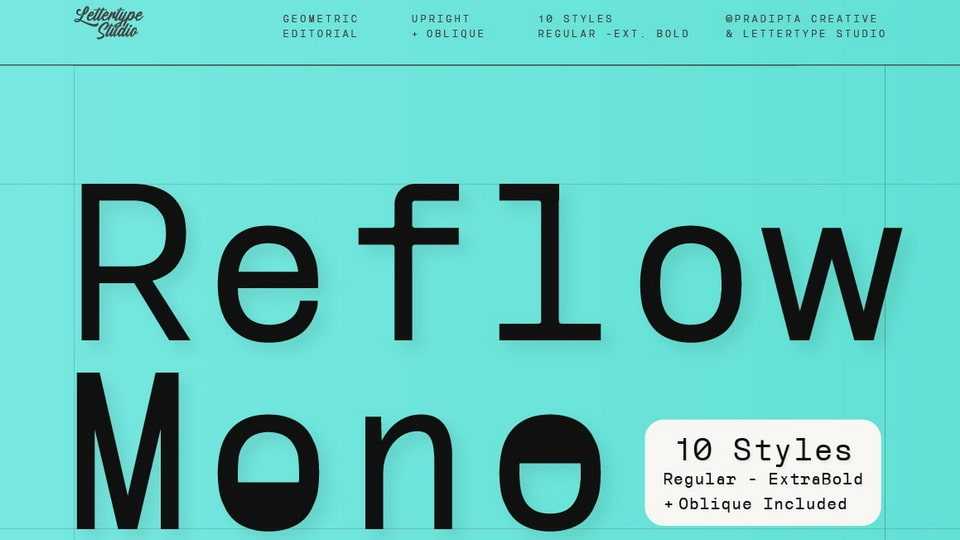
Download Reflow Mono font, the monospaced evolution of Reflow Sans — a clean geometric typeface reimagined for editorial use and structural harmony.
Designer: Lettertype Studio